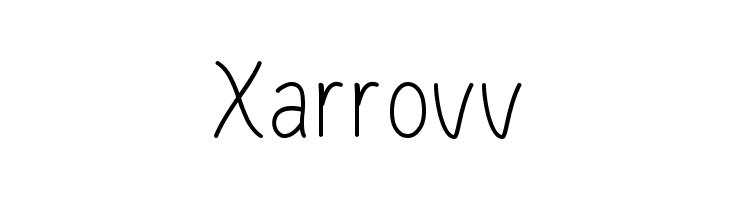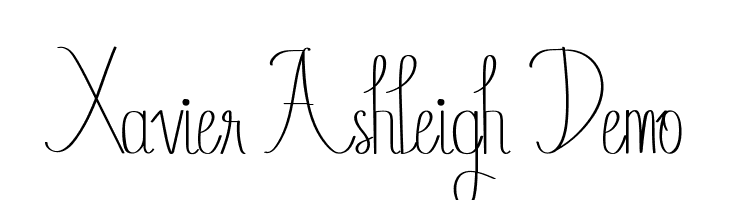
( Fonts by Don Marciano )
A lively, handwritten font with fluid, dynamic strokes and a casual, informal style.
( Fonts by www.pia-frauss.de )
An artistic and whimsical font with elongated, flowing letterforms.
( Fonts by www.pia-frauss.de )
An ornate and decorative font with intricate flourishes and whimsical character shapes.
A bold, gothic-inspired font with sharp, angular lines and dramatic serifs.
A bold, 3D outline font with a dynamic and striking appearance.
A bold, decorative font with a vintage flair and outlined characters.
A bold, condensed decorative font with sharp serifs and unique curves.
A bold, condensed, and italicized font with high contrast and angular design.
A bold, angular font with a counter-rotated design and dynamic style.
A bold, gothic-inspired font with sharp, angular edges and dramatic serifs.
A bold, expanded italic font with calligraphic influences and strong visual impact.
A bold, medieval-inspired font with sharp, angular edges and dramatic curves.
An elegant, expanded, and italicized font with a light weight and modern style.
A decorative font with a bold, striped, three-dimensional appearance.
A jagged, horror-themed font with sharp edges and irregular strokes.
A bold, italic font with sharp serifs and a dynamic, modern style.
A bold, left-leaning font with sharp, angular edges and high contrast.
A decorative font with sharp, angular edges and a gothic flair.
A dynamic, italicized font with high contrast and sharp serifs.
A bold, medieval-inspired font with dynamic, twisted characters.
( Fonts by www.aenigmafonts.com )
A bold, geometric font with rounded edges and a modern, futuristic style.
( Fonts by www.typodermicfonts.com - Ray Larabie )
A futuristic, geometric font with bold, angular letterforms.
A futuristic, geometric font with sharp angles and clean lines.
An ornate and decorative font with elaborate swirls and flourishes.
An ornate and decorative script font with intricate details.
A bold, modern font with a dynamic and edgy style.
A clean, modern sans-serif font with consistent stroke width and excellent readability.
A bold, clean sans-serif font with excellent readability and a modern aesthetic.
A bold, italicized font with a strong, dynamic appearance.
A modern, italic font with clean lines and dynamic slant.